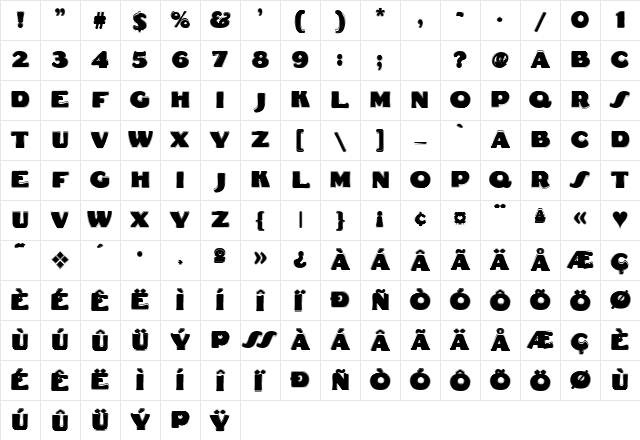
Fat Freddie Contour Regular
Design Context for Fat Freddie Contour
Fat Freddie Contour is a composed and adaptable typeface that performs quietly and consistently across a wide range of design contexts.
Pro Tip: Use Fat Freddie Contour in both headline and body roles to test its range before committing to a single application.